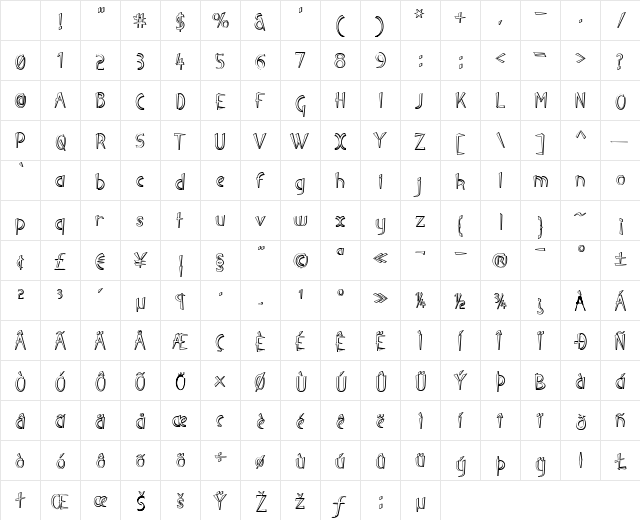
Luteous Industrious Regular Free Font
Luteous Industrious Regular
Designer: Graham Meade & Rich Parks
Design Context for Luteous Industrious
Luteous Industrious is a composed and adaptable typeface that performs quietly and consistently across a wide range of design contexts.